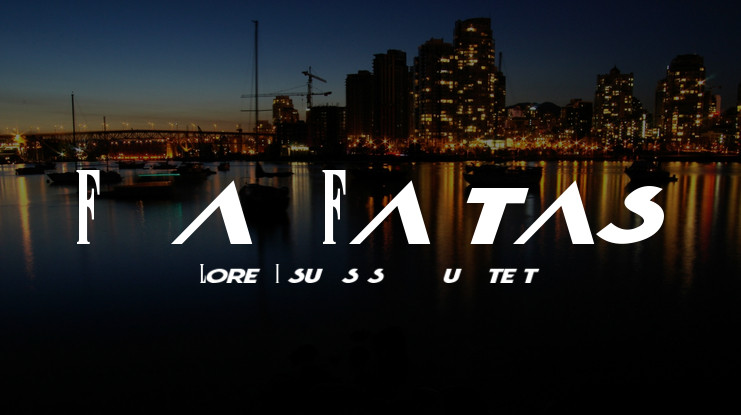
Final Fantasy Font
Final Fantasy Font is the most used font in MEME. This is used in the logo designing and it is Reddit typeface and it is similar to the tactics font. This typeface is inspired by a game series called “final fantasy”. The font family has TrueType Outlines and is free for personal use.
The font family has very unique glyphs includes uppercase and lowercase letters, numbers and numerals, and special symbols as well. Its some characters have a wide condensed and large size that is the specialty of this typeface. This free font like buttercup handwritten font abilities that has identical beauty. It’s loose to apply with privateness duties.
Having a couple of goals is critical at the same time as designing expert obligations. Its huge bold characters are specially made for making something unique. Usage Once in a while, those may be informal, first-rate instances excessive, but, constantly, give up an internet net web page online internet website traffic need to look at the proper identical problem you’re trying to tell them. Its characters are very common for web-based designs special for gaming logos, you can apply this stunning typeface in your game content and gaming youtube thumbnail as well.
This typeface is very good for making designs in CSS and adobe applications. The gamers will feel gleeful after watching your youtube logo or youtube thumbnail with the making of this typeface. It’s not only good for these works that we talk about above but also great for other kinds of designs like Art & Illustration, Wallpaper design, Screen Design, and many more. Final Fantasy Font View Font Information Edit NameFinal Fantasy Font DesignerJuan Pablo Reyes Altamirano StyleFancy TypeTTF LicenseFree For Personal Use Download Final Fantasy Font What you have to do you just click on the download button below and let’s get started with the new journey of designing.
Is Final Fantasy a proportional Font? This typeface is a good fancy font that is wealthy for web-based designs. It is a proportional font because its characters occupy the same amount of horizontal spaces. Can I use Final Fantasy Font in a logo?